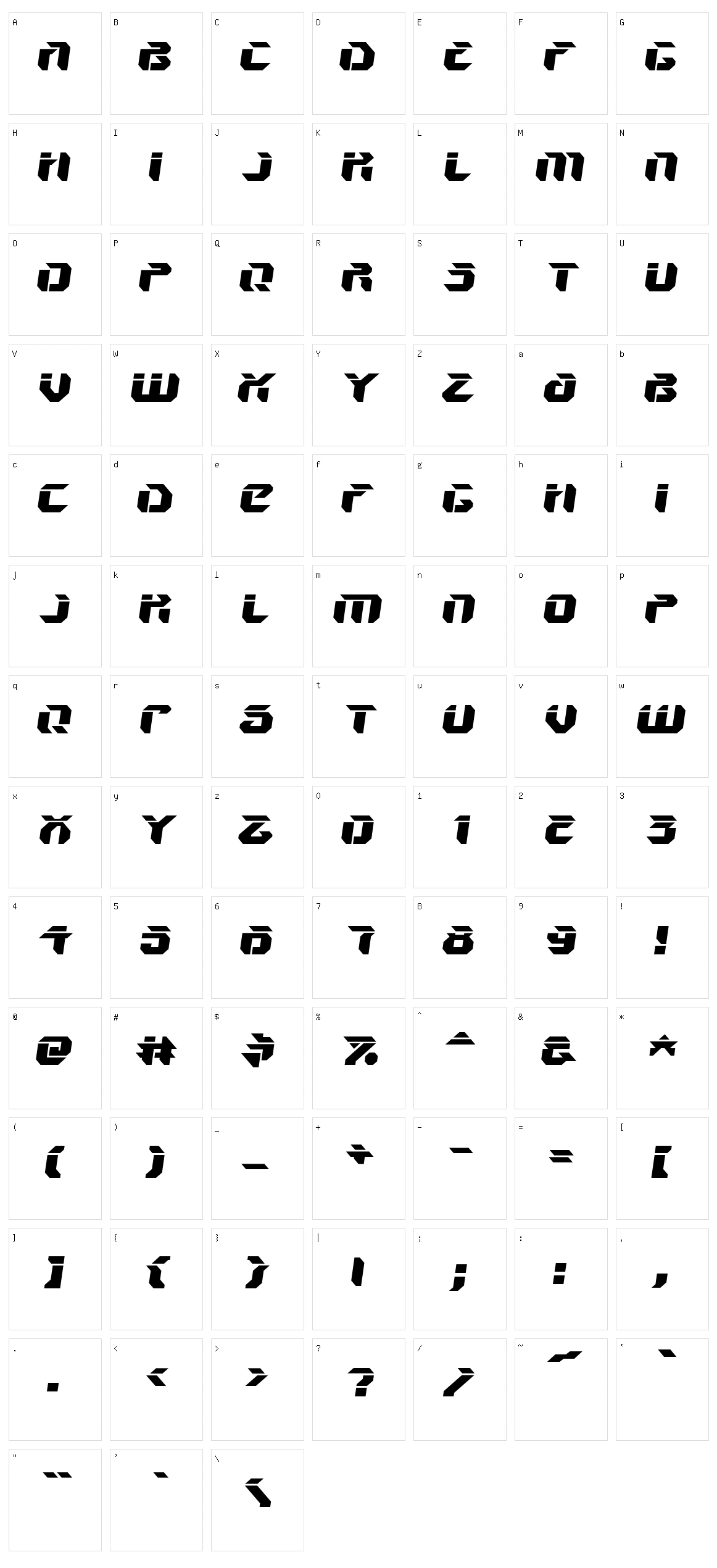
Meant to be used at relatively large sizes.
You can get away with down to 12pt for print
purposes, but will need to set at larger
sizes (20pt+) for screen use (ideally at
26pt or larger). For extra sharpness on
screen, set it specifically at 26pt with
antialiasing off. Always antialias at other
sizes.
++ Ampón (Slanted) ++
Same as above (larger sizes work best), but
always antialias for screen use.
Slanted = Upright skewed 8 degrees east.
++ Ampón (Warped) ++
This variant is more of an experiment than
a standalone face. Upright + Slanted = Warped.
This equation makes for a heavier/blacker face.
Use cautiously--some glyph combinations work,
others will yield completely illegible titles.
Works best with short words (3-6 letters).
Experiment at will, and report back.
Notes:
1. Ampón was built as an all-uppercase face.
As you type in lowercase, you will notice ampón
behaves also as a unicase/mixed case face.
For these, X-height = cap height, giving you the
flexibility to choose from two types of:
a,c,e,m,n,o,r,s,u,v,x,z
Some differences are more pronounced than others
(a,e,r). All other lowercase letters are
equivalent to their uppercase counterparts.
2. The numeral "0" gives you a third option
for "o".